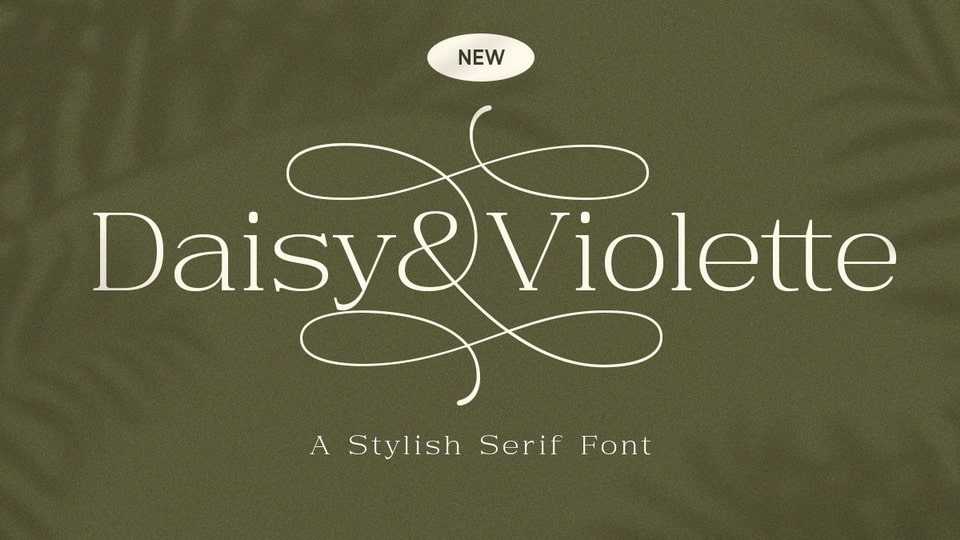
Download Daisy & Violette font, a mesmerizing serif typeface that blends modernity with classic refinement. Whether used for high-end packaging, editorial layouts, or upscale event invitations, Daisy & Violette brings an air of sophistication that will leave a lasting impression.